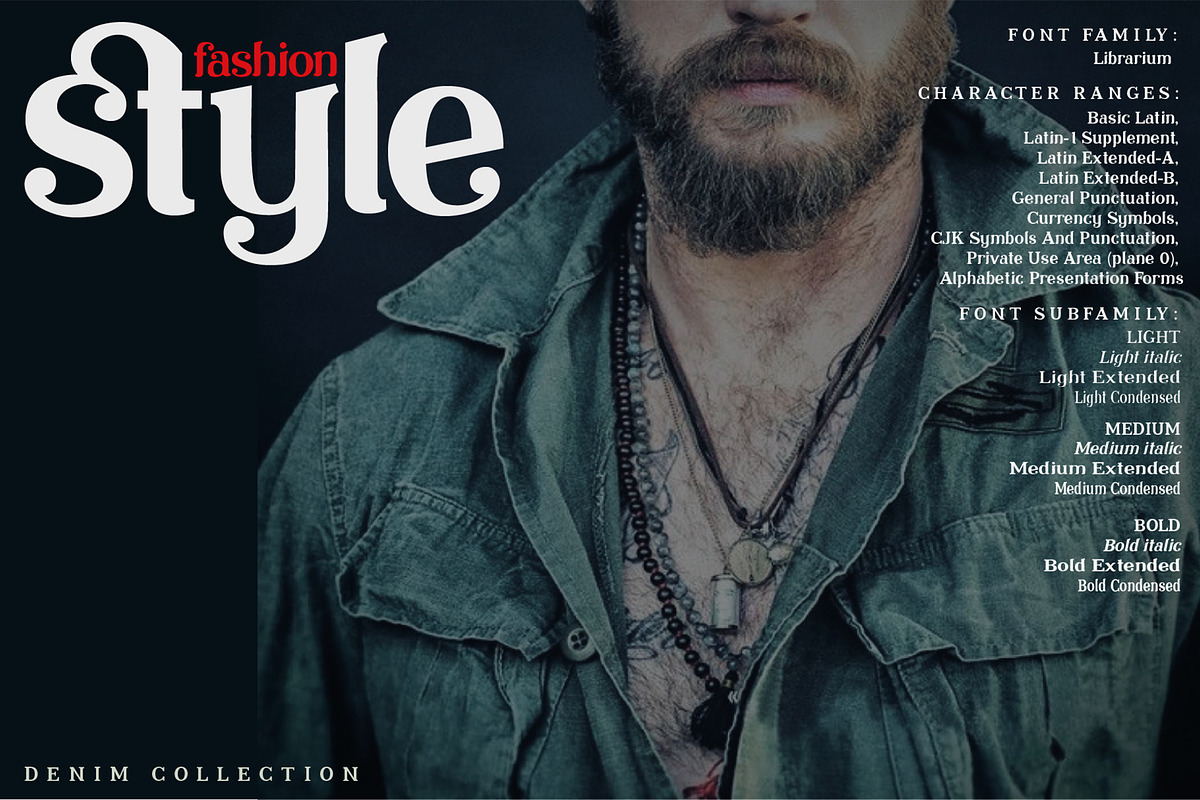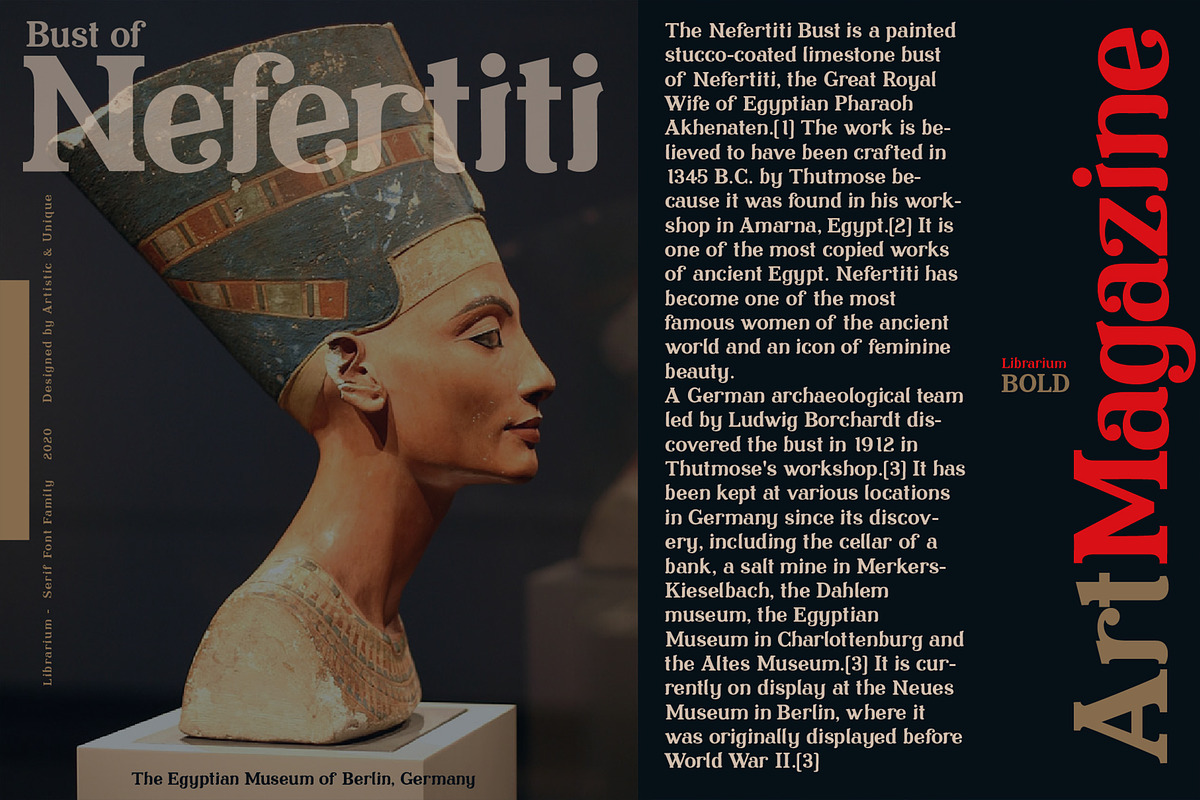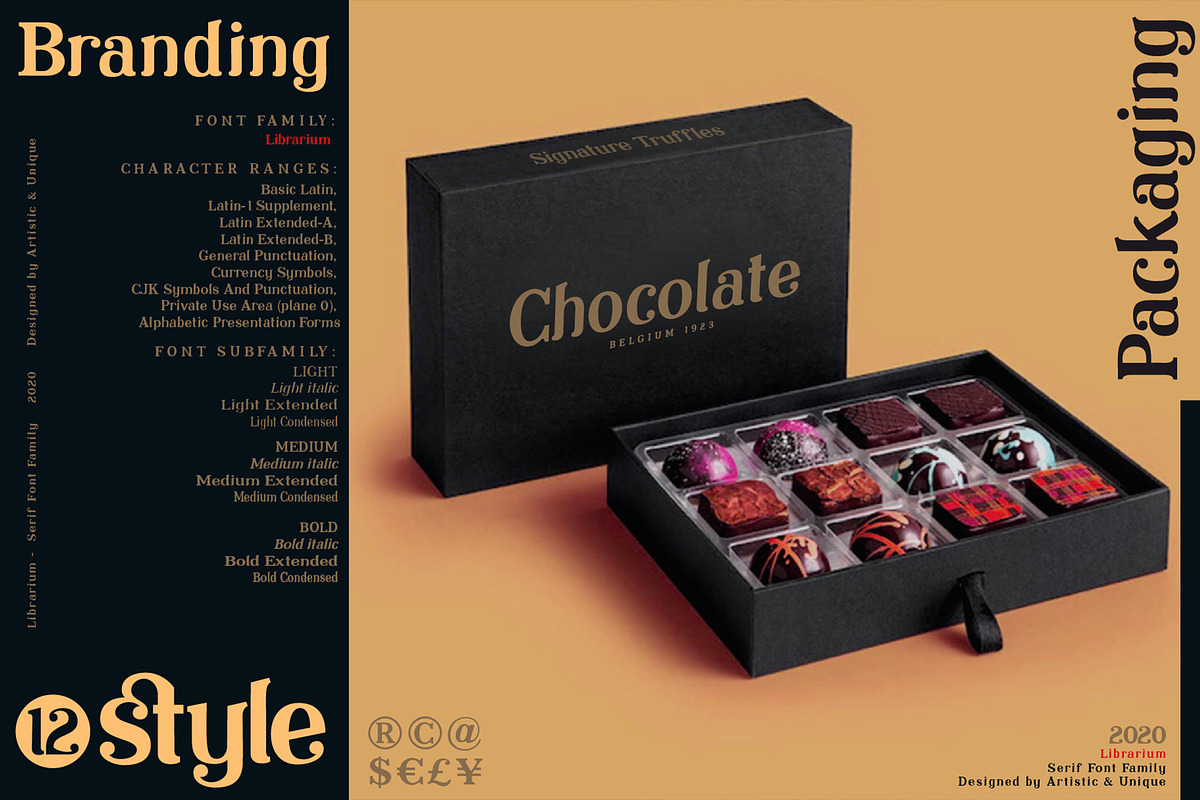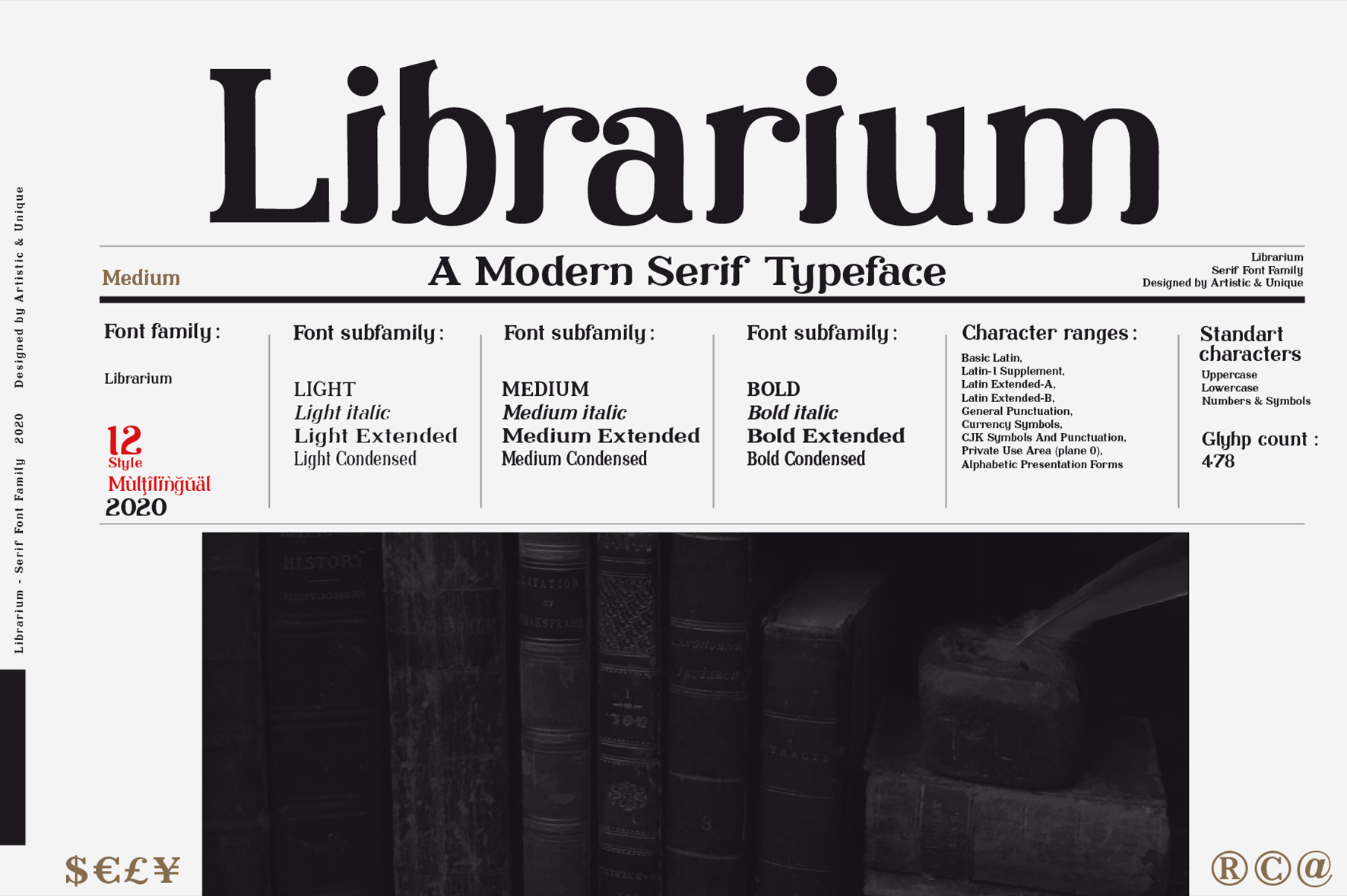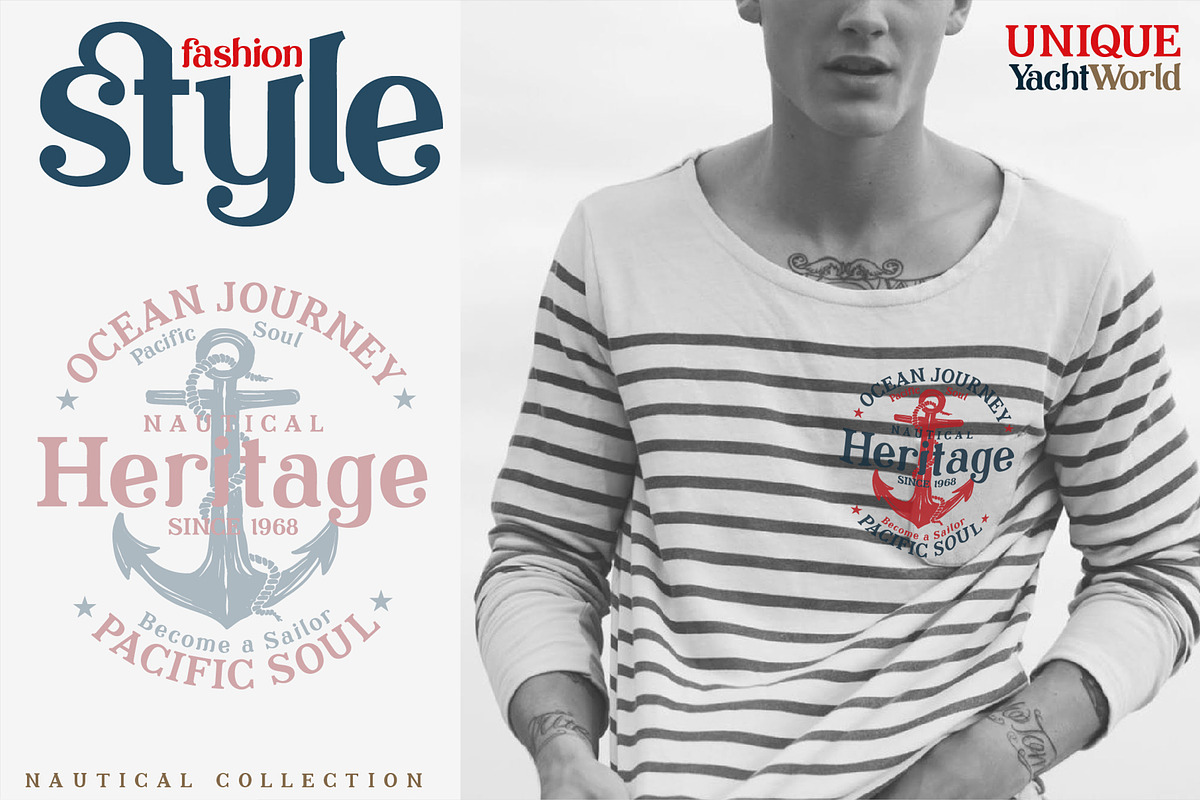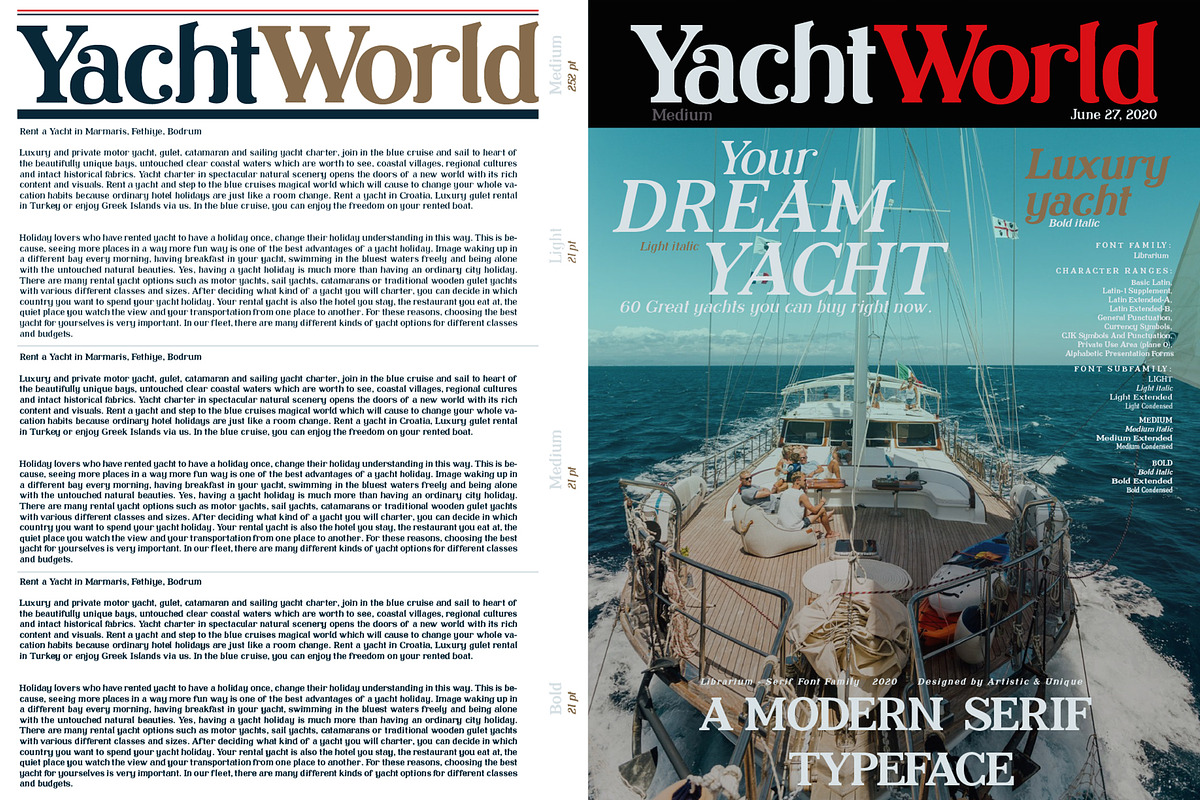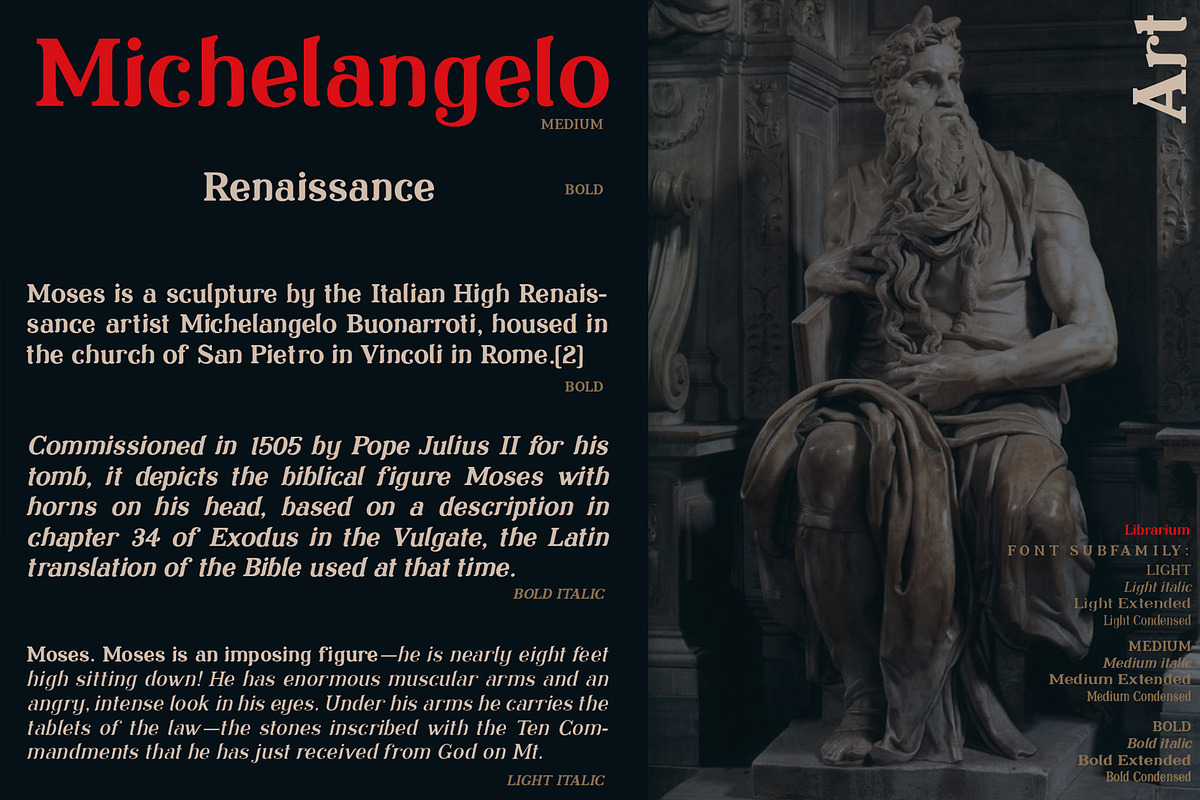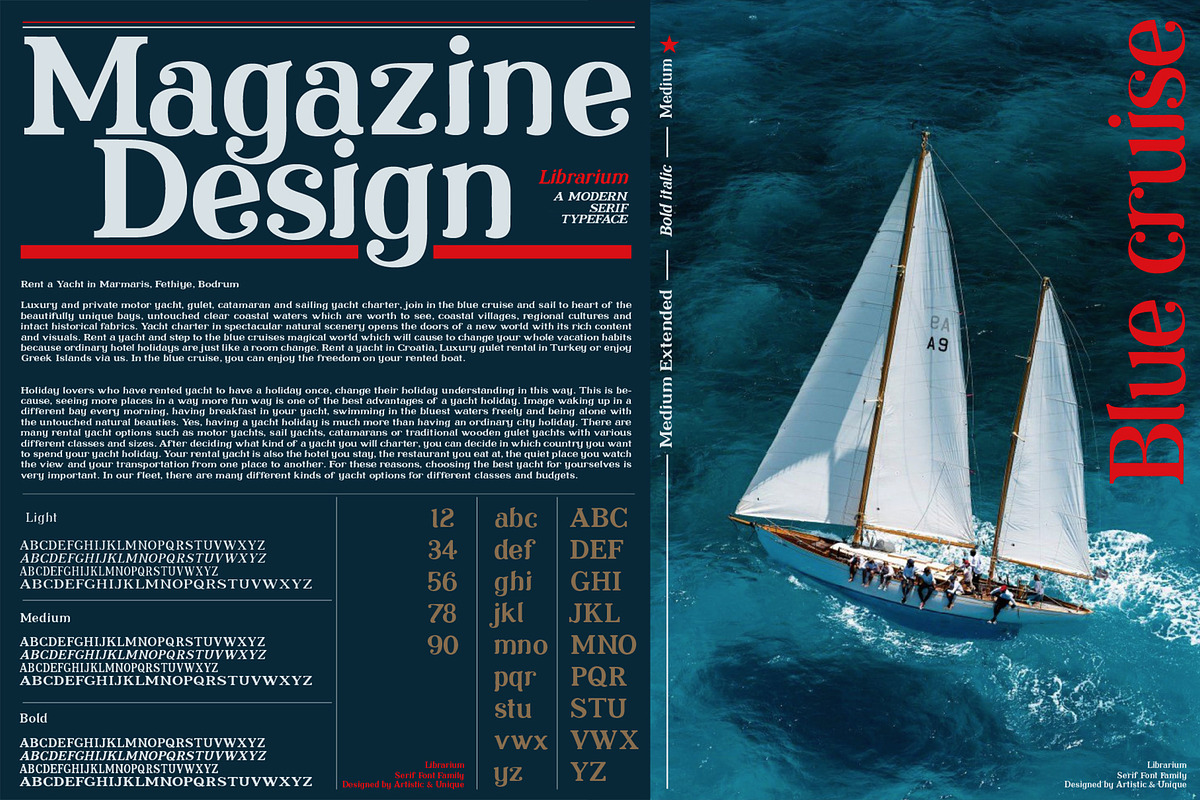
Librarium - Serif Font Family
Librarium - Serif Font Family - Multilingual (2020) - 12 Style
Librarium serif font is a versatile serif with a luxurious feel.This font is versatile, whether you're working on classic-themed design or modern designs, it's best suited for almost anything. Librarium font can be used for magazines, books, titles, websites, logos, clothing, invitations, branding, packaging, advertising, etc.
This typeface comes with uppercase, lowercase, punctuation, symbols and numbers, ligatures and multilingual options.
With its modern versatile stance, this font can meet your needs in all modern or classic creative projects.
With this font you can create your unique designs.